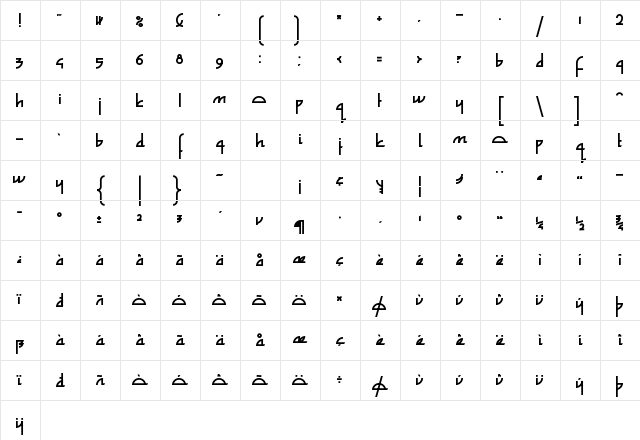
Zefir Normal Free Font
Zefir Normal
Foundry: Adam Rucki
Designer: Adam Rucki
Design Context for Zefir
Zefir is a composed and adaptable typeface that performs quietly and consistently across a wide range of design contexts.